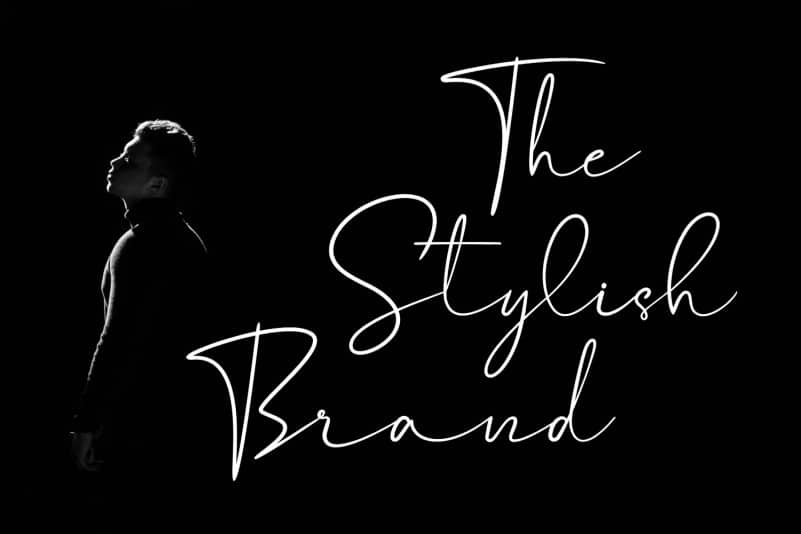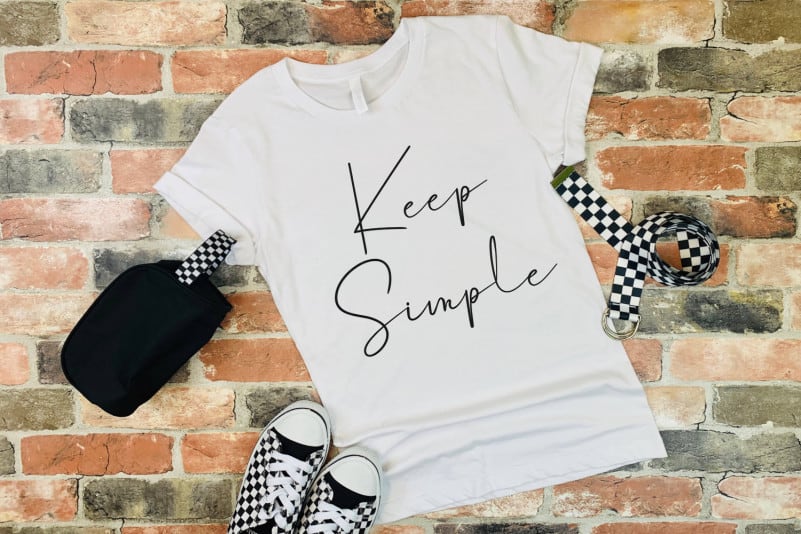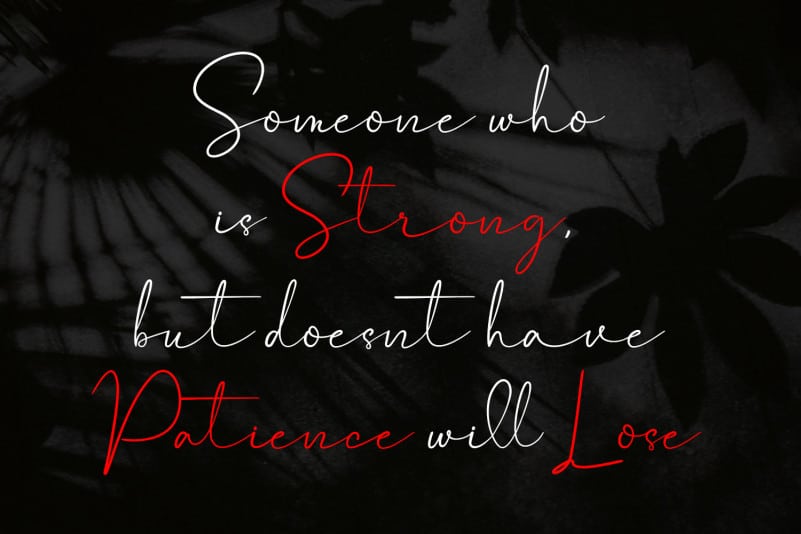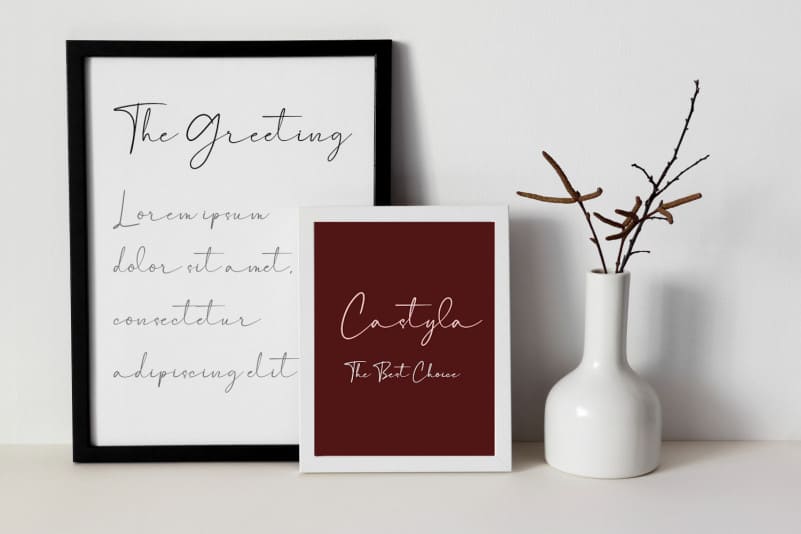
Hello, let me introduce my new signature elegant font Castyla. Castyla Signature Font comes with many ligature and it is made like handwriting so it is suitable for logos, brands, business cards, wedding invitations, quotes, and many more.